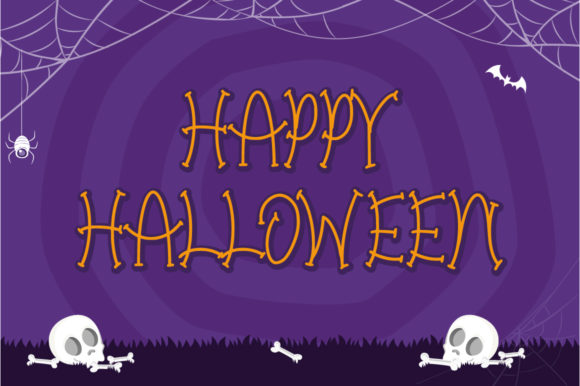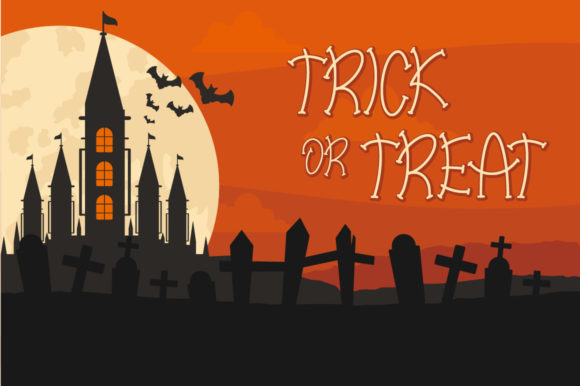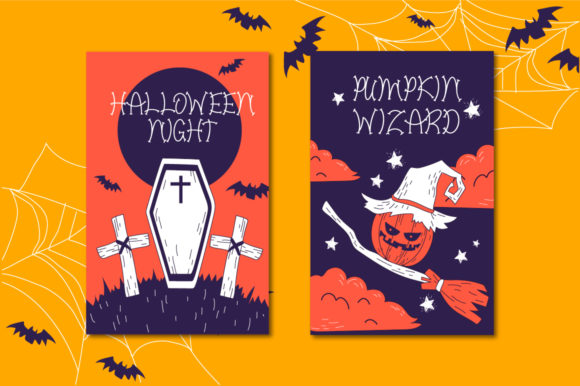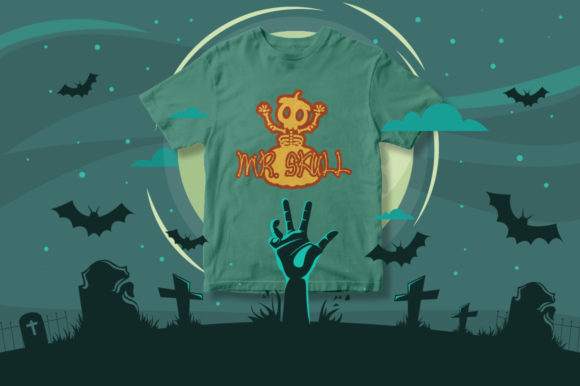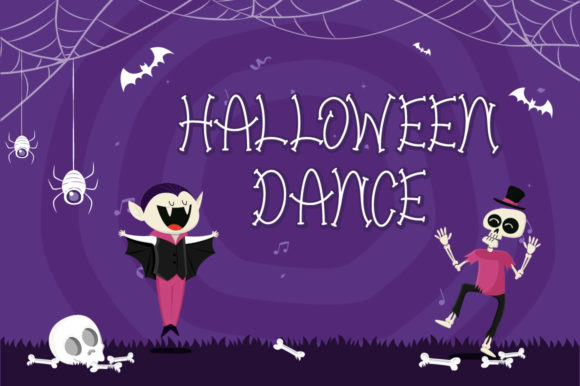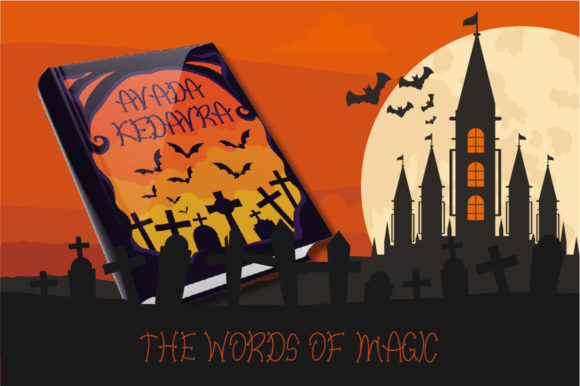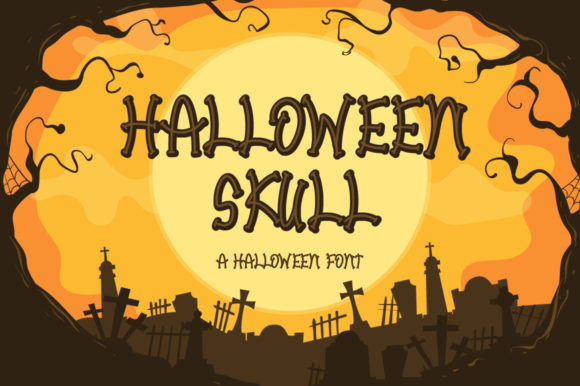
Unleash the Spirit of Halloween with the Quirky Halloween Skull Font
As the spookiest time of the year approaches, designers and crafters are on the lookout for unique and eye-catching elements to add to their creations. If you’re looking to make your projects stand out, look no further than the Halloween Skull Font. This quirky and incredibly unique display font is sure to add a touch of macabre magic to your designs.
The Perfect Addition to Your Halloween Designs
The Halloween Skull Font is a one-of-a-kind typeface that’s perfect for adding a dash of personality to your Halloween-themed projects. Whether you’re designing invitations, decorations, or social media graphics, this font is sure to make your creations pop. Its bold and quirky design makes it perfect for headlines, titles, and short phrases, and its versatility ensures that it can be used in a variety of contexts.
What Makes the Halloween Skull Font So Unique?
So, what sets the Halloween Skull Font apart from other display fonts on the market? For starters, its design is inspired by the classic symbols of Halloween, including skulls, bats, and other spooky icons. The font’s quirky and playful style is reminiscent of vintage Halloween decorations and signs, making it perfect for designers who want to add a touch of nostalgia to their work.
How to Use the Halloween Skull Font in Your Designs
The Halloween Skull Font is incredibly easy to use and can be incorporated into a variety of design projects. Here are a few ideas to get you started:
• Create spooky invitations for Halloween parties or events
• Design eye-catching decorations for your home or office
• Add a touch of personality to your social media graphics and posts
• Use the font to create unique and personalized gifts, such as mugs, t-shirts, and tote bags
Tips for Getting the Most Out of the Halloween Skull Font
To get the most out of the Halloween Skull Font, here are a few tips to keep in mind:
• Use the font in bold and eye-catching colors to really make it pop
• Experiment with different font sizes and styles to add visual interest
• Combine the font with other Halloween-themed elements, such as images and graphics, to create a cohesive look
• Don’t be afraid to get creative and try out new and unique design ideas
Why Designers and Crafters Love the Halloween Skull Font
The Halloween Skull Font has quickly become a favorite among designers and crafters, and it’s easy to see why. Here are just a few reasons why this font is a must-have for anyone looking to add a touch of Halloween spirit to their designs:
• Its unique and quirky design makes it perfect for adding a touch of personality to your work
• Its versatility ensures that it can be used in a variety of contexts and design projects
• Its bold and eye-catching style makes it perfect for headlines, titles, and short phrases